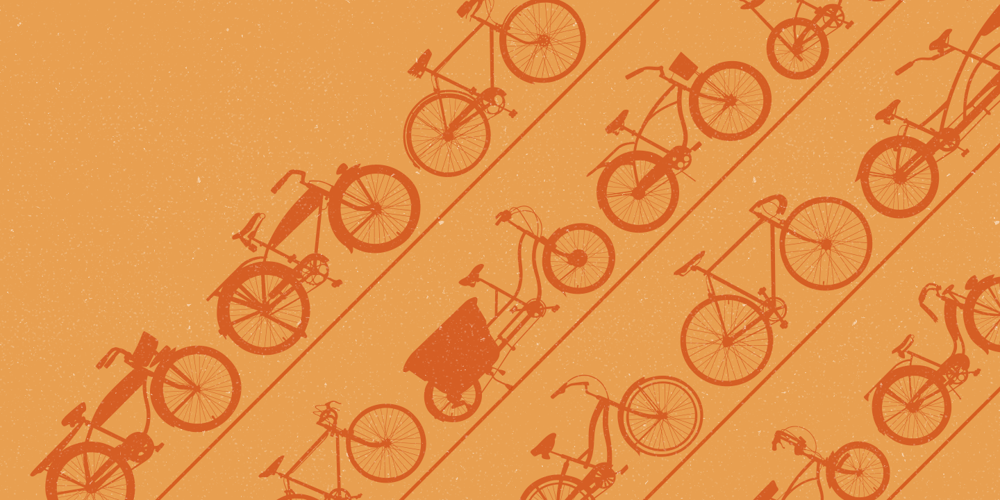
BIKES Font Family was designed by Lauren Ashpole and published by Lauren Ashpole. BIKES contains 1 styles and family package options. Do you enjoy bicycles? So much that when you aren’t riding them you spend your time on bike related design? Then this font is for you. BIKES is a dingbat font that lives up to its name. The capital letters are detailed silhouettes of cycles while the lowercase are simplified versions for smaller uses.